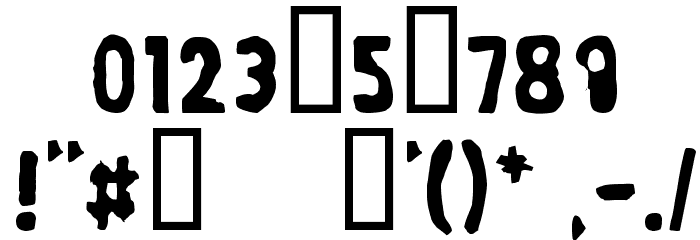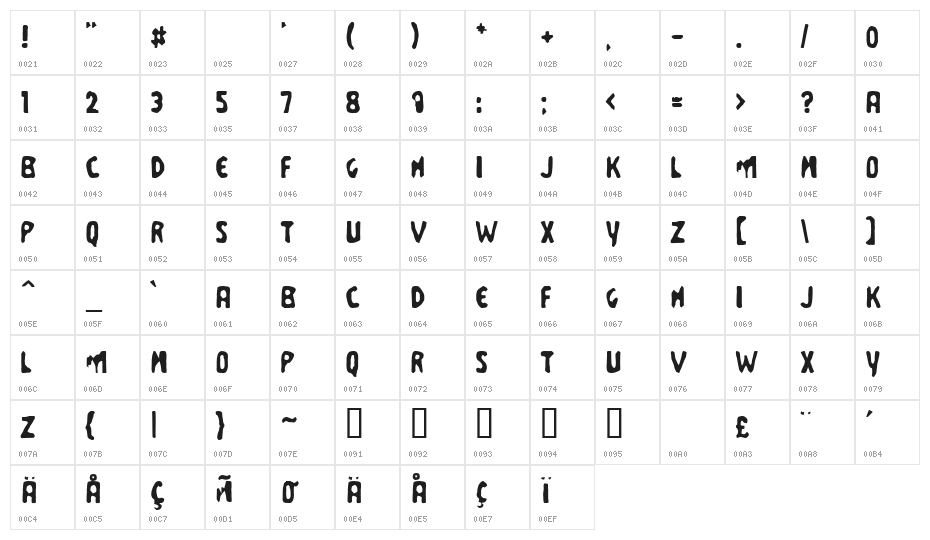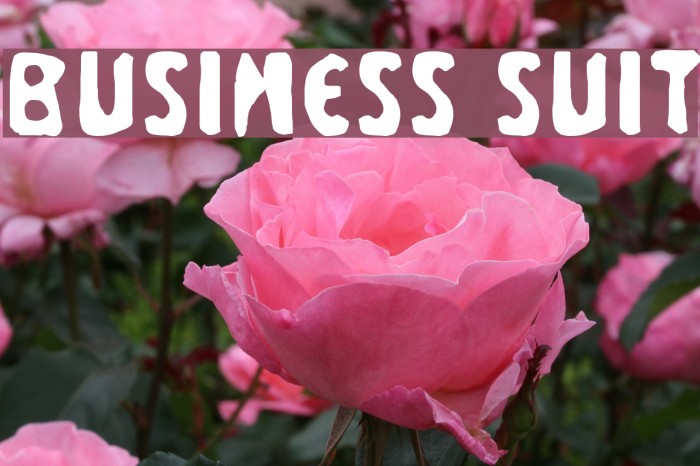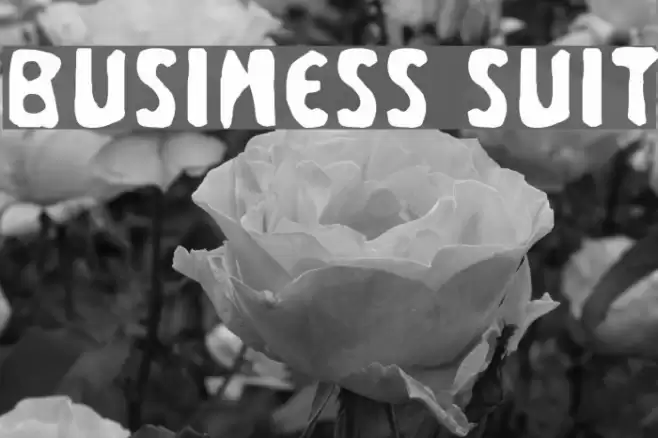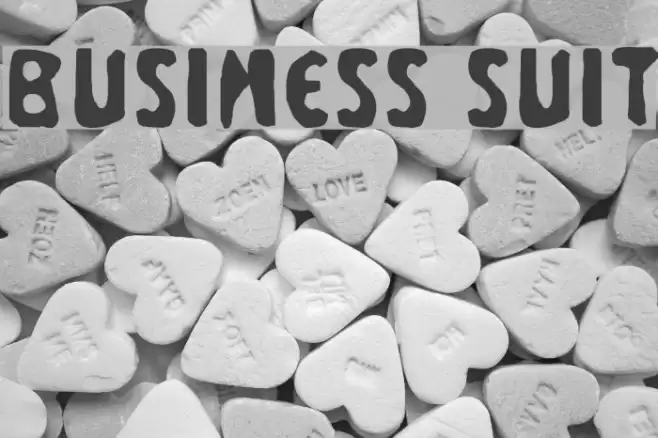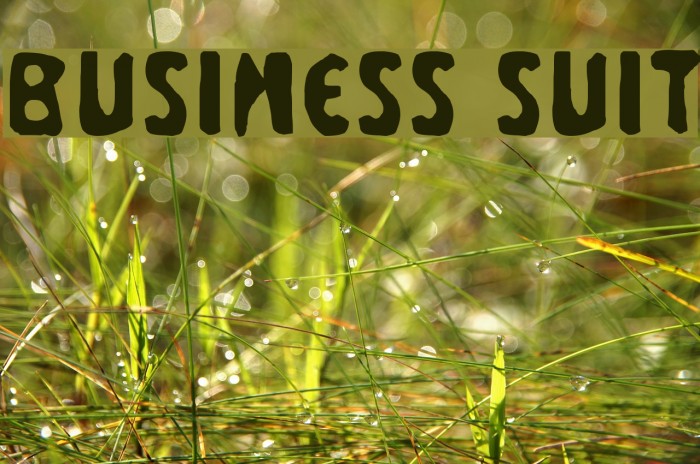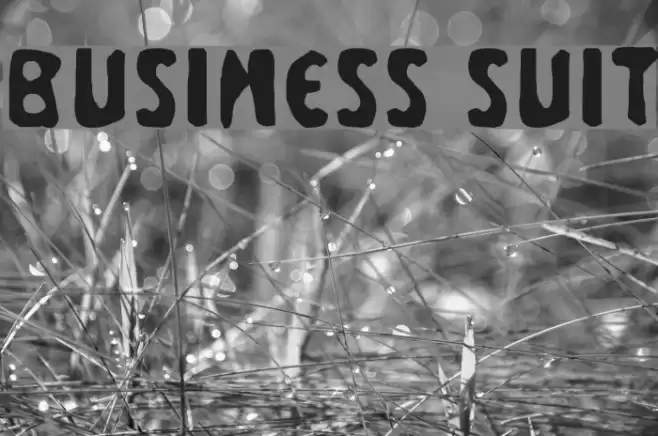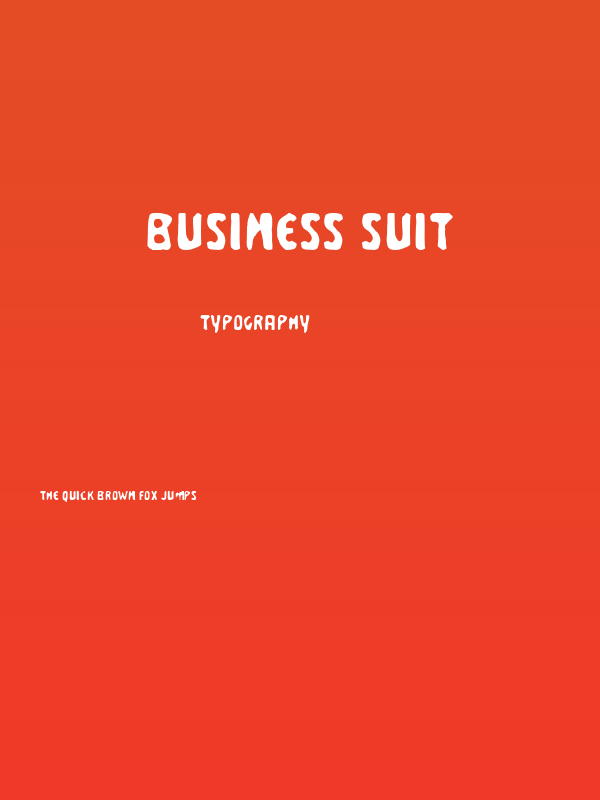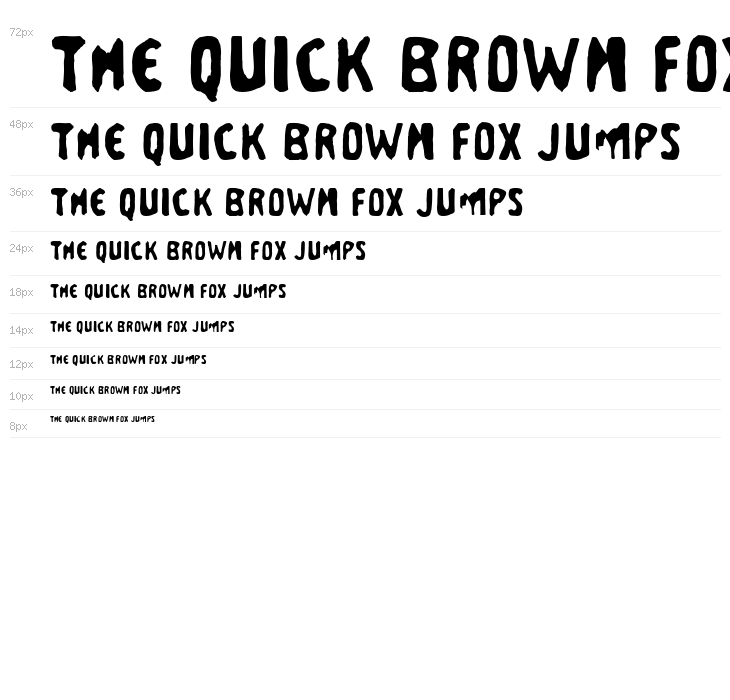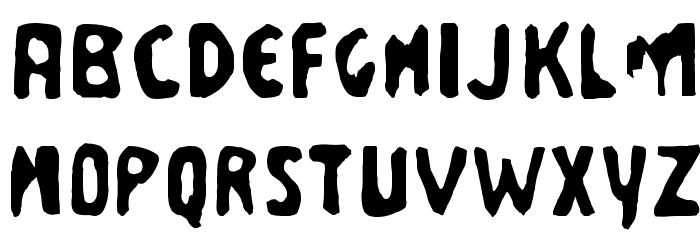
Business Suit Font
Business Suit Description
This font features a bold and playful design with a hand-drawn aesthetic. The characters are irregular and have a slightly rough texture, giving them a unique and artistic appearance. The uppercase and lowercase letters maintain a consistent style, with exaggerated curves and varying stroke widths that add to the font's charm. The numerals and special characters follow the same whimsical design, making this font ideal for creative and informal projects. Its distinctive style is perfect for capturing attention and conveying a sense of fun and creativity.
| Proposed Projects | Ideal for children's book covers, playful branding, posters, and creative social media graphics. |